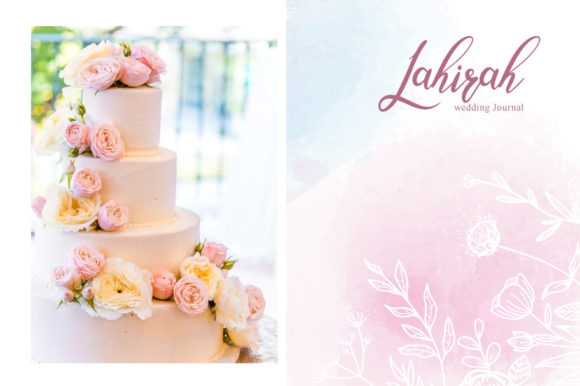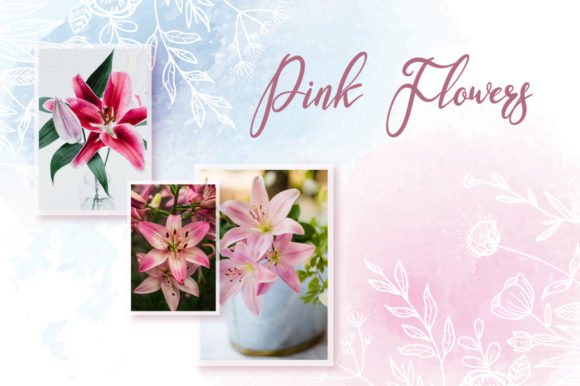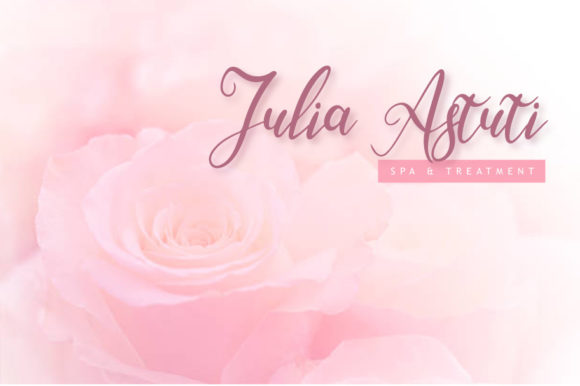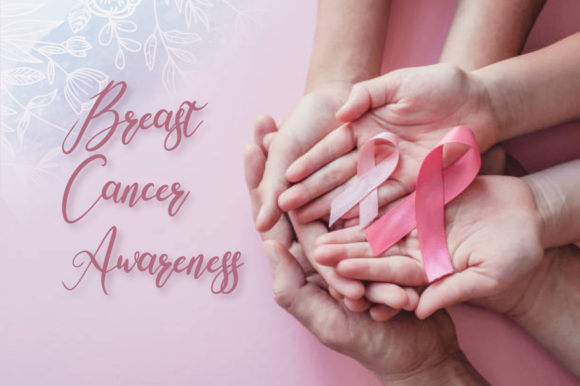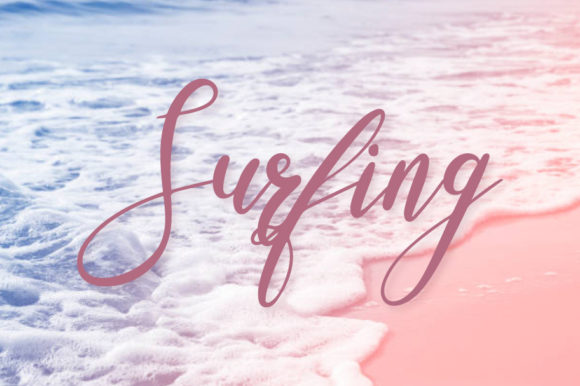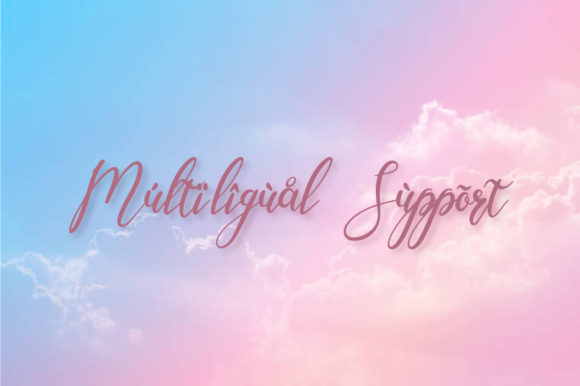
Introduction to Miskroxy Font
Miskroxy Script is a lovely and timeless handwritten font.
Key Features of Miskroxy Font
Why Choose Miskroxy Font?
Miskroxy Font offers exceptional quality and versatility, making it a valuable addition to your design toolkit. Whether you’re creating for personal projects or commercial use, Miskroxy Font delivers professional results.